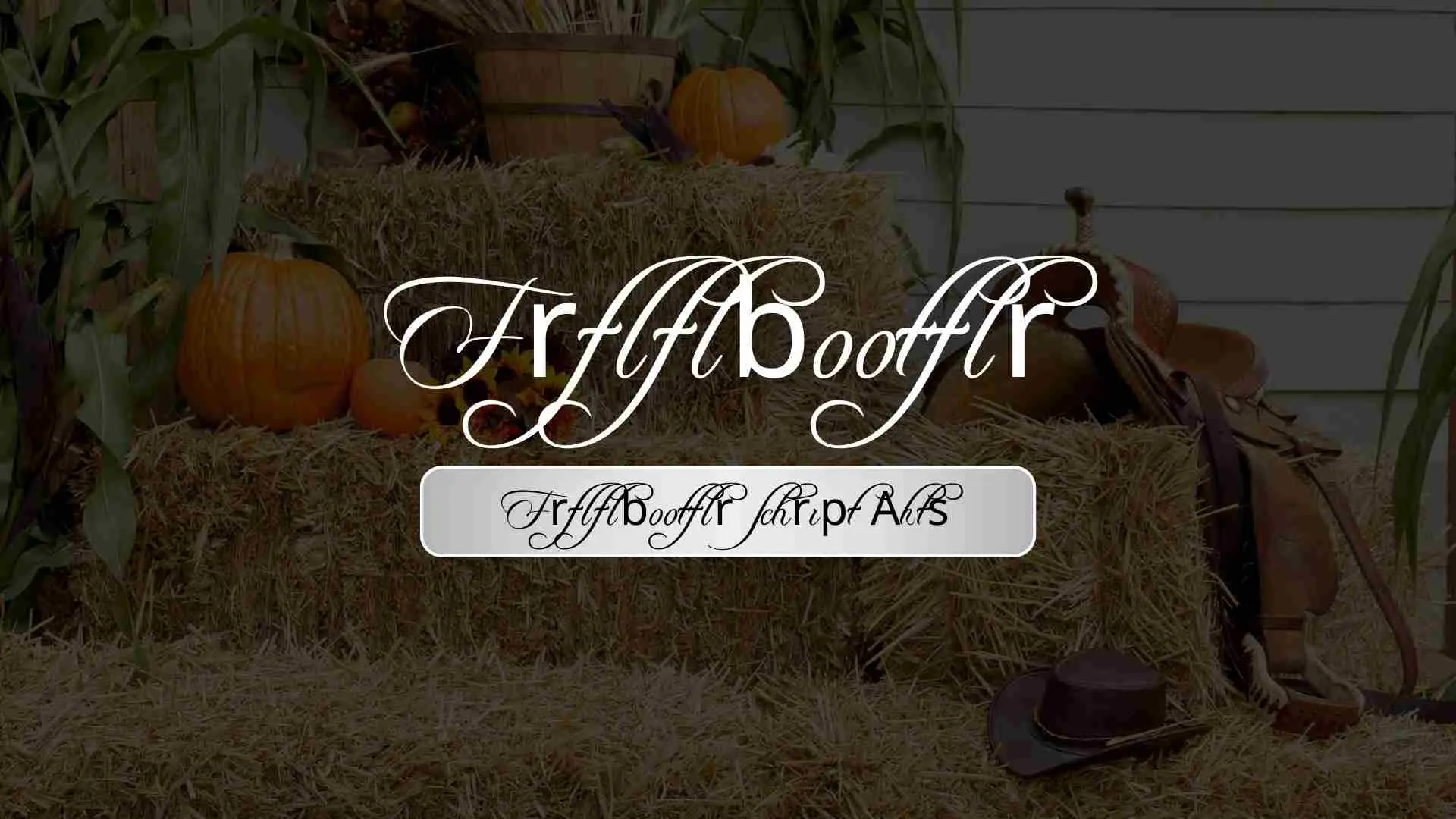
The font Freebooter Script Alts, designed by Graham Meade, falls under the Script category & Freebooter font family. Its smooth, flowing letterforms make it a versatile choice for projects that require both elegance and readability. Freebooter is particularly well-suited for Branding, Wedding Invitations, Headlines, Titles, Formal Invitations, Logos, Action and Certificates. With its balance of simplicity and decorative appeal, this font brings a polished touch to both personal and professional designs.